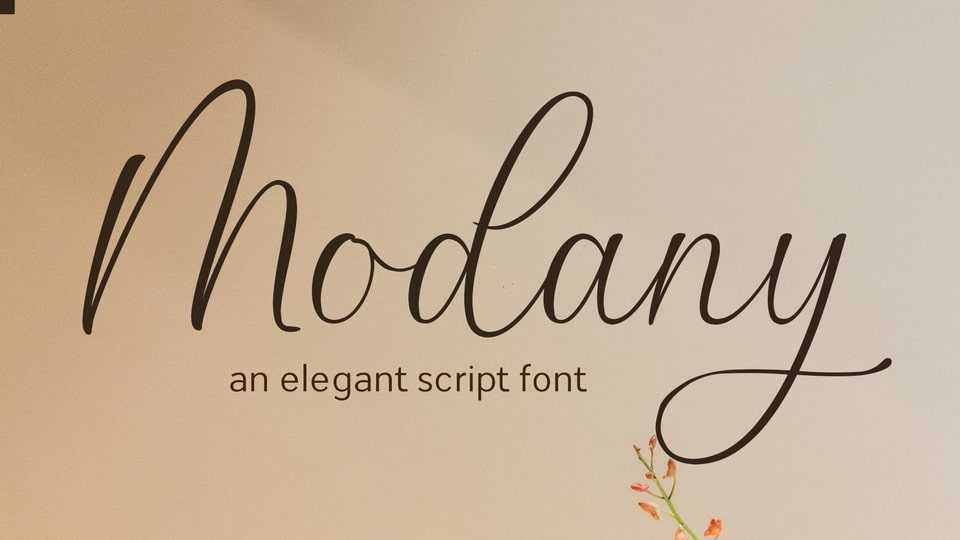
Download Modany font, a delicate script typeface with natural movement make looks elegant, classy and beauty for your project.
Designer: Mytype Studio